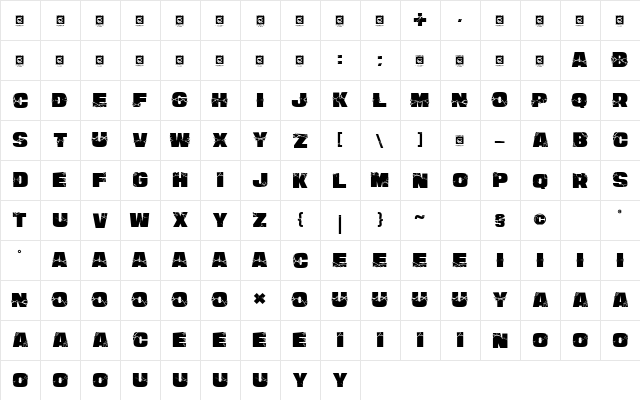
Smash Wall Personal Use
| Foundry | Putracetol Studio |
| Designer | Putra Novembria Candra Kusuma |
Design Context for Smash Wall Typeface
Smash Wall is a composed and adaptable typeface that performs quietly and consistently across a wide range of design contexts.